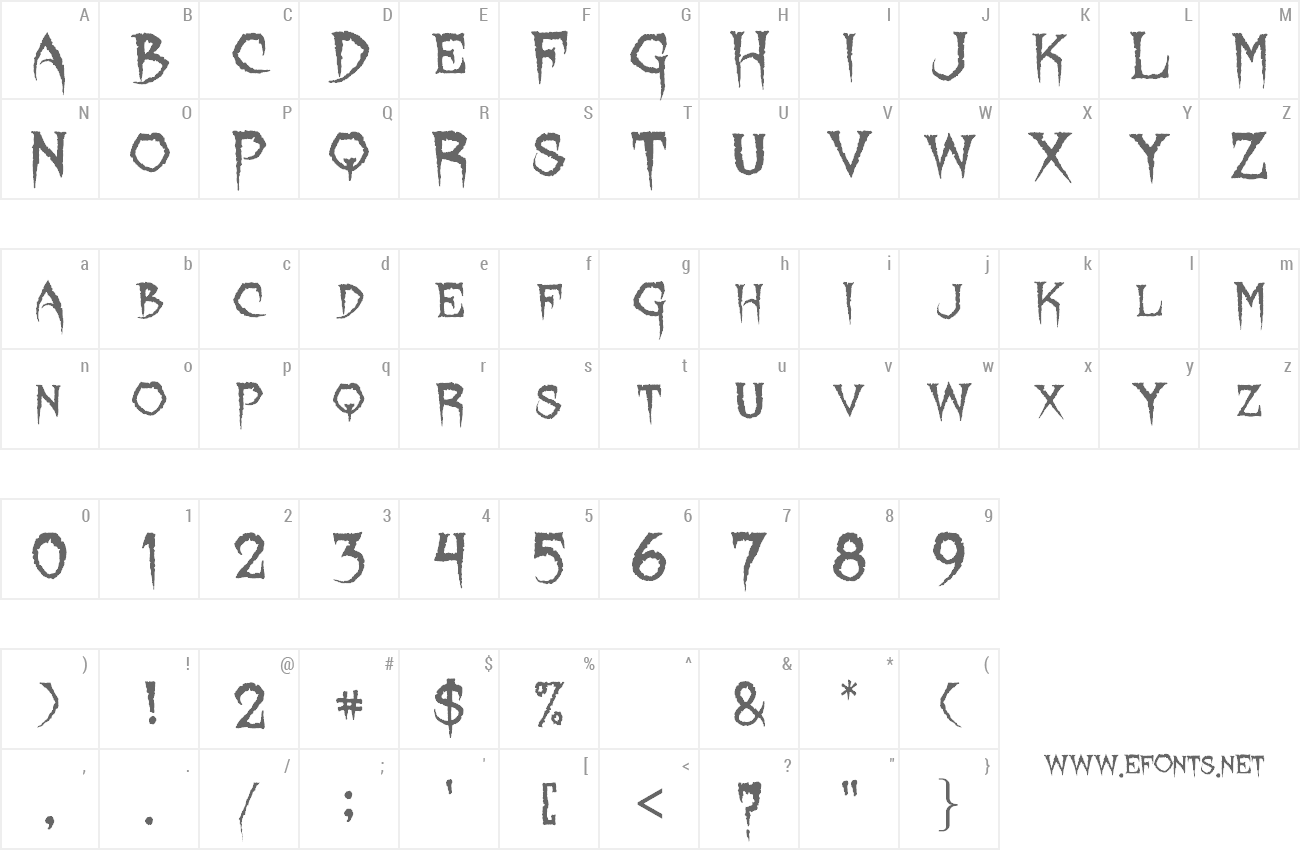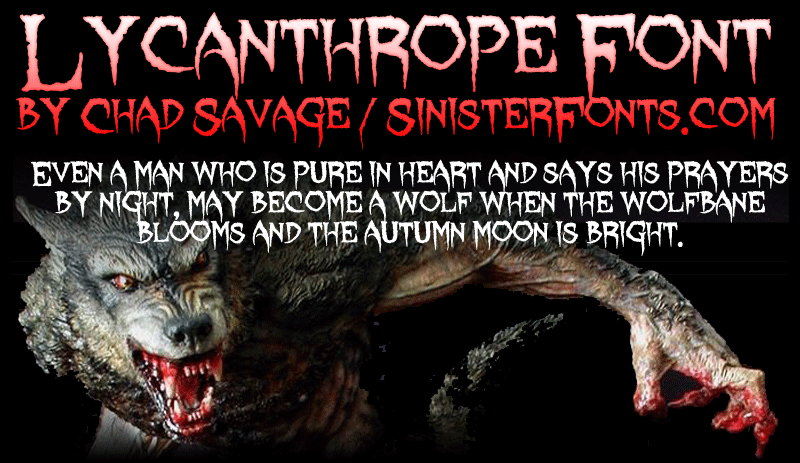
Preview and download Lycanthrope Font. Created by Sinister Fonts in Fancy Horror styles with 100% Free license.
Lycanthrope Font by Chad Savage http://www.sinisterfonts.com Created 2009, hand-lettered just after Halloween. This is a free font, and I mean FREE. Use it however you want, for whatever you want. If you make something cool with it, I'd love to see it - email me at savage@sinistervisions.com and tell me about it. If you offer it for download on your own font site, PLEASE include this Read Me. That's not too much to ask, is it? This font is intended for specialty and graphic uses. It will look just awful if used in a paragraph format. For more free fonts and other downloadable goodies, visit http://www.sinisterfonts.com. FOR INSTRUCTIONS ON HOW TO INSTALL/USE THIS FONT, visit http://www.sinisterfonts.com, or just look it up on Google. Seriously. Don't email me and ask - this information is easily found with a 20-second search. |